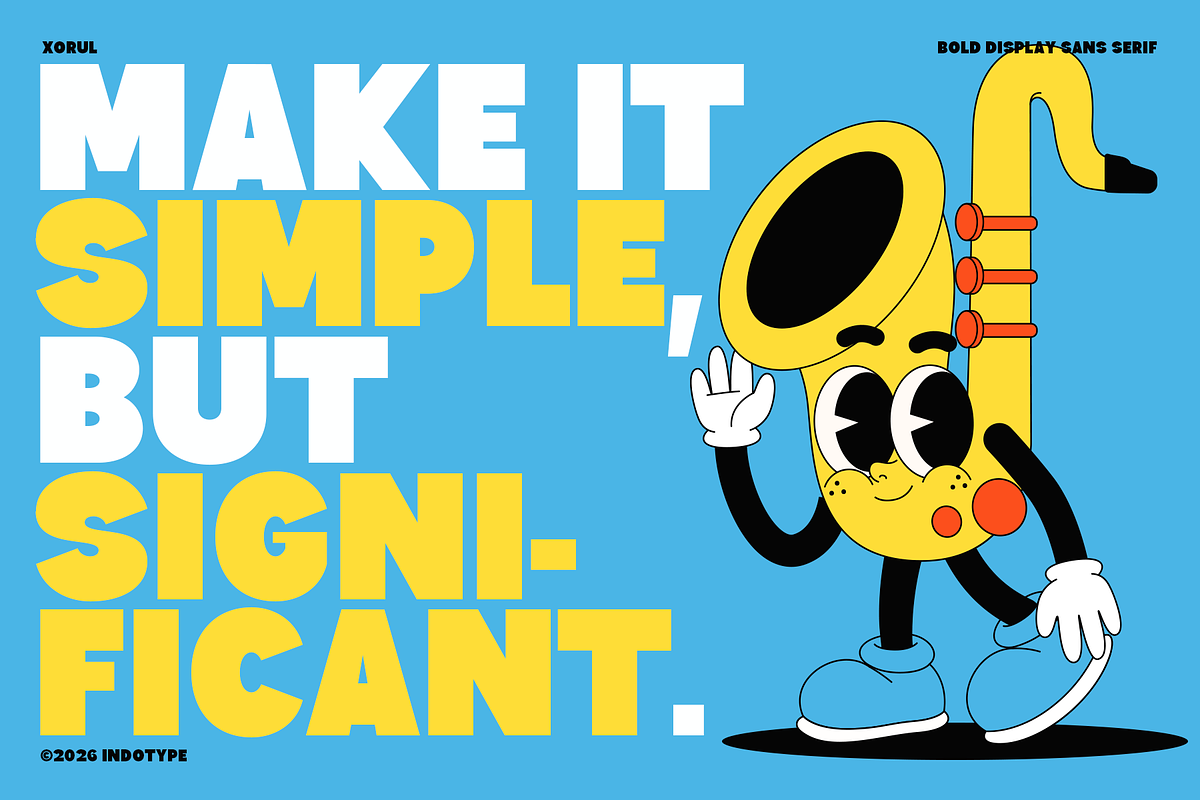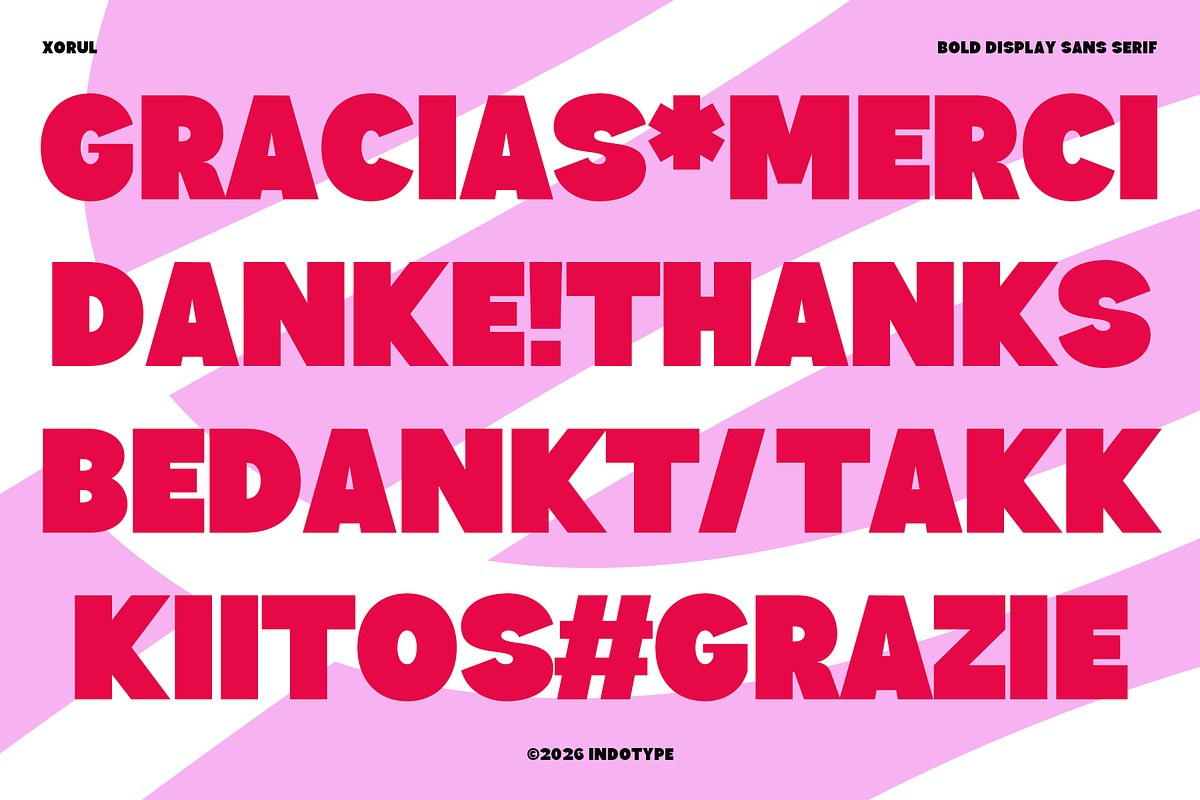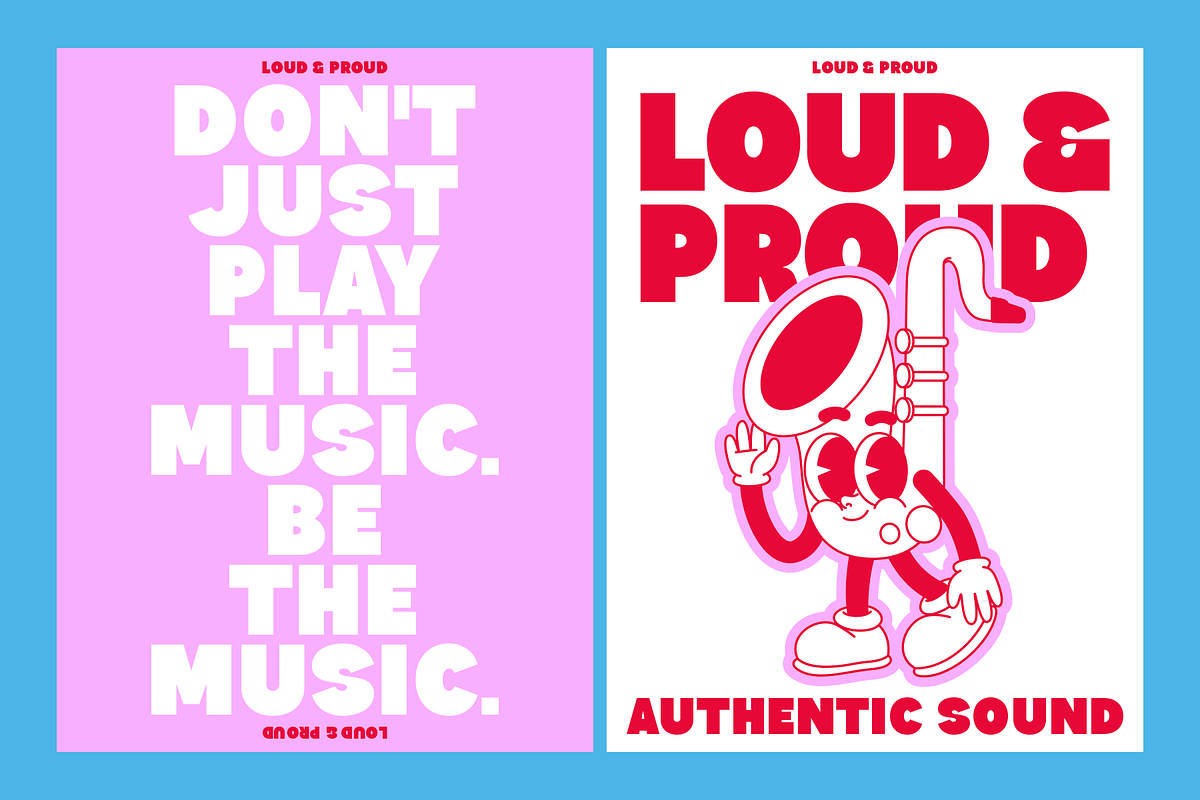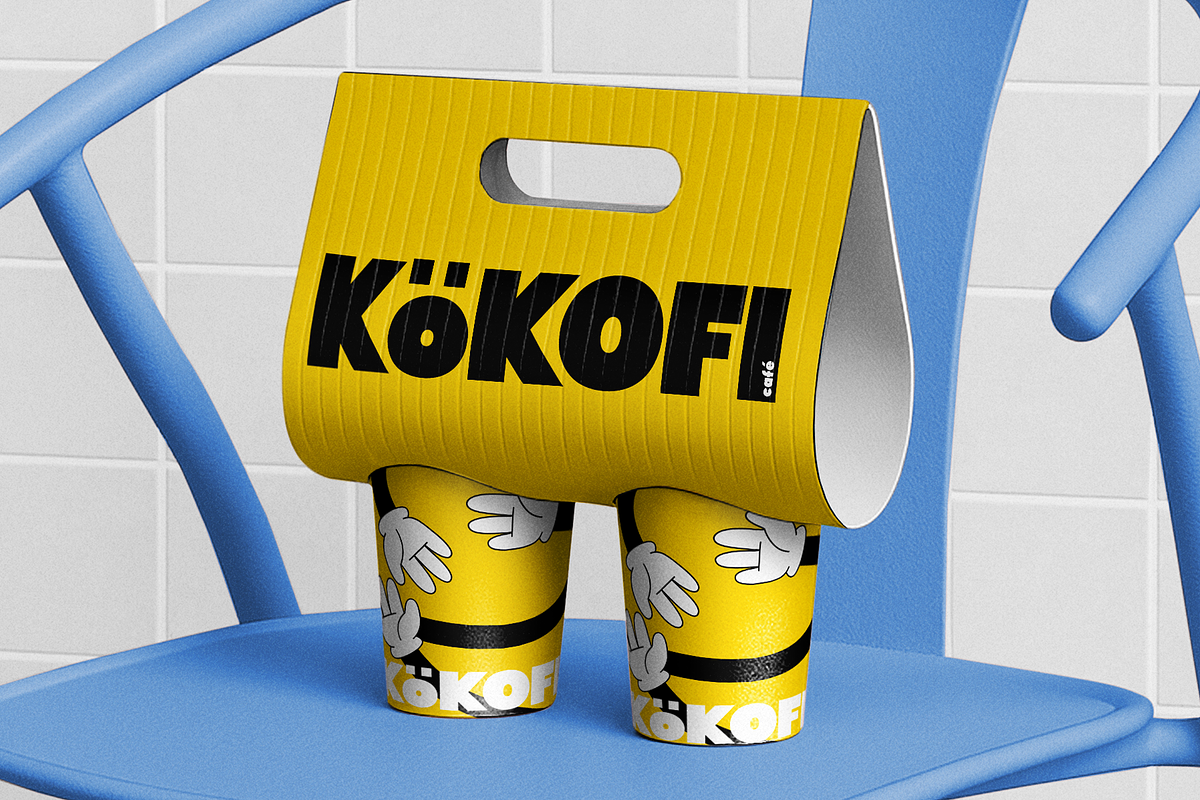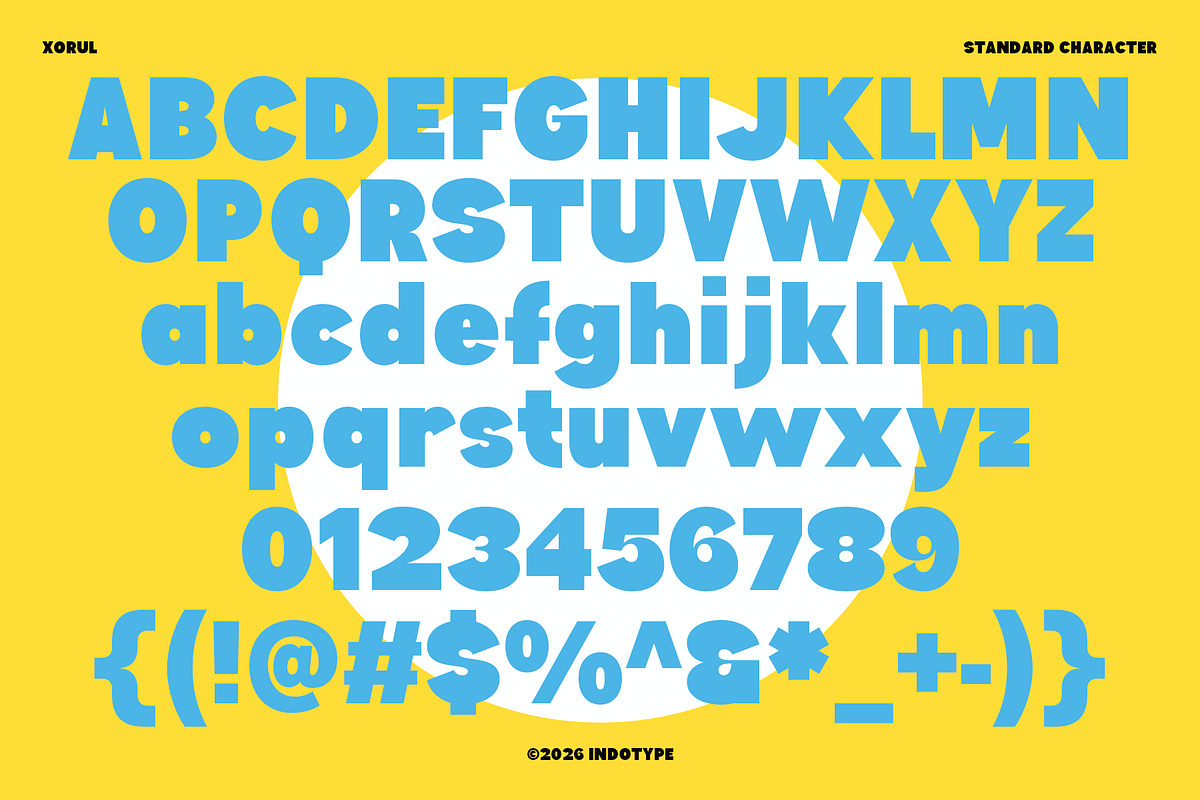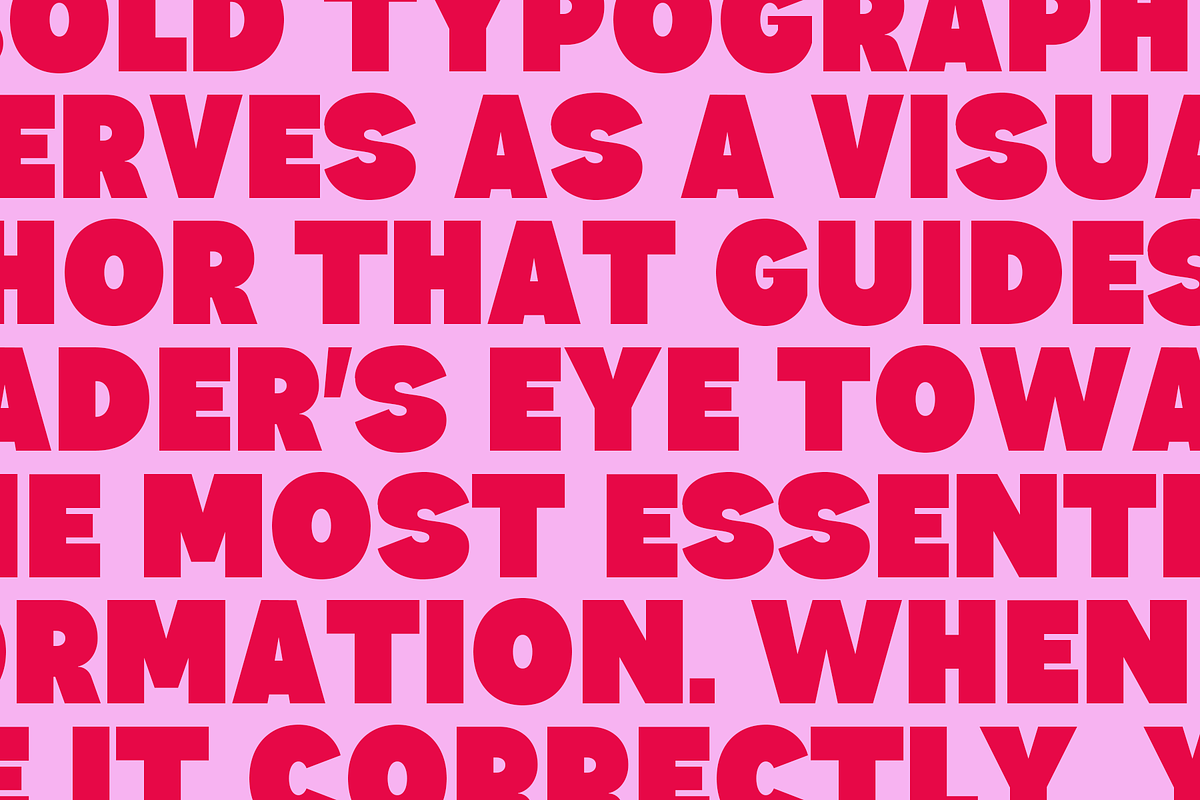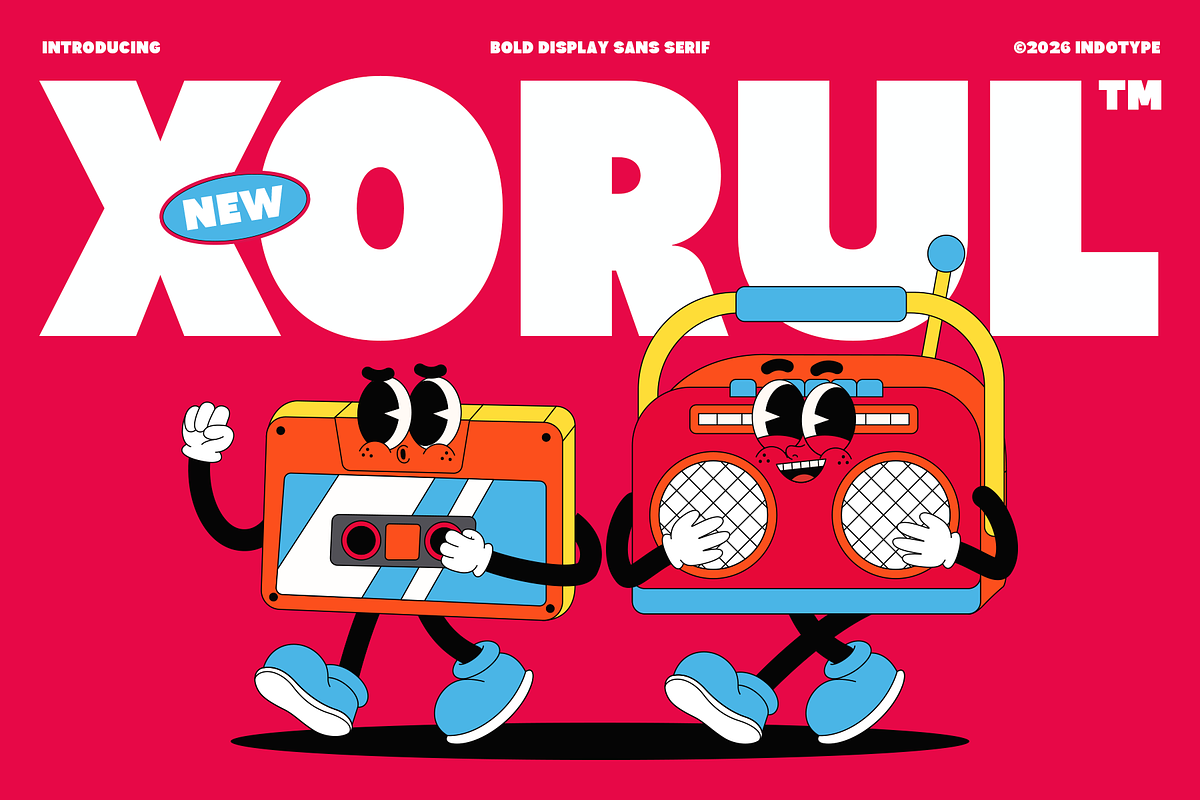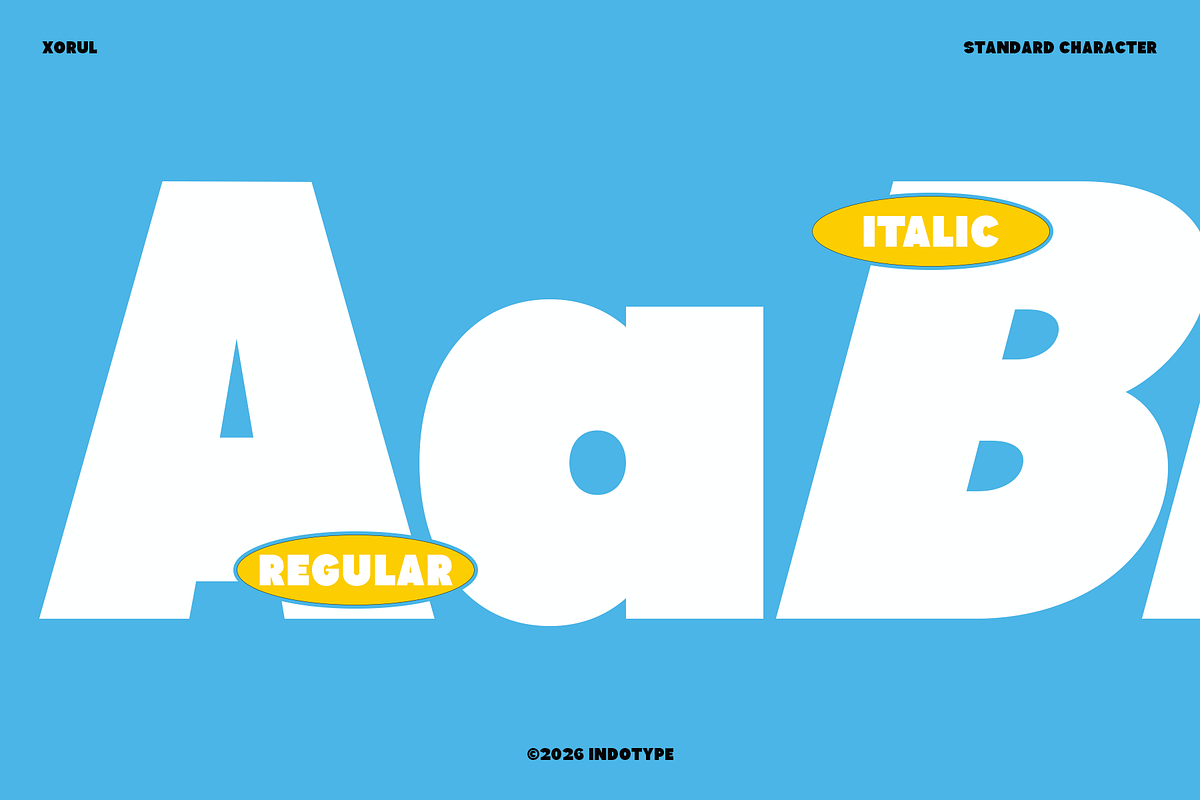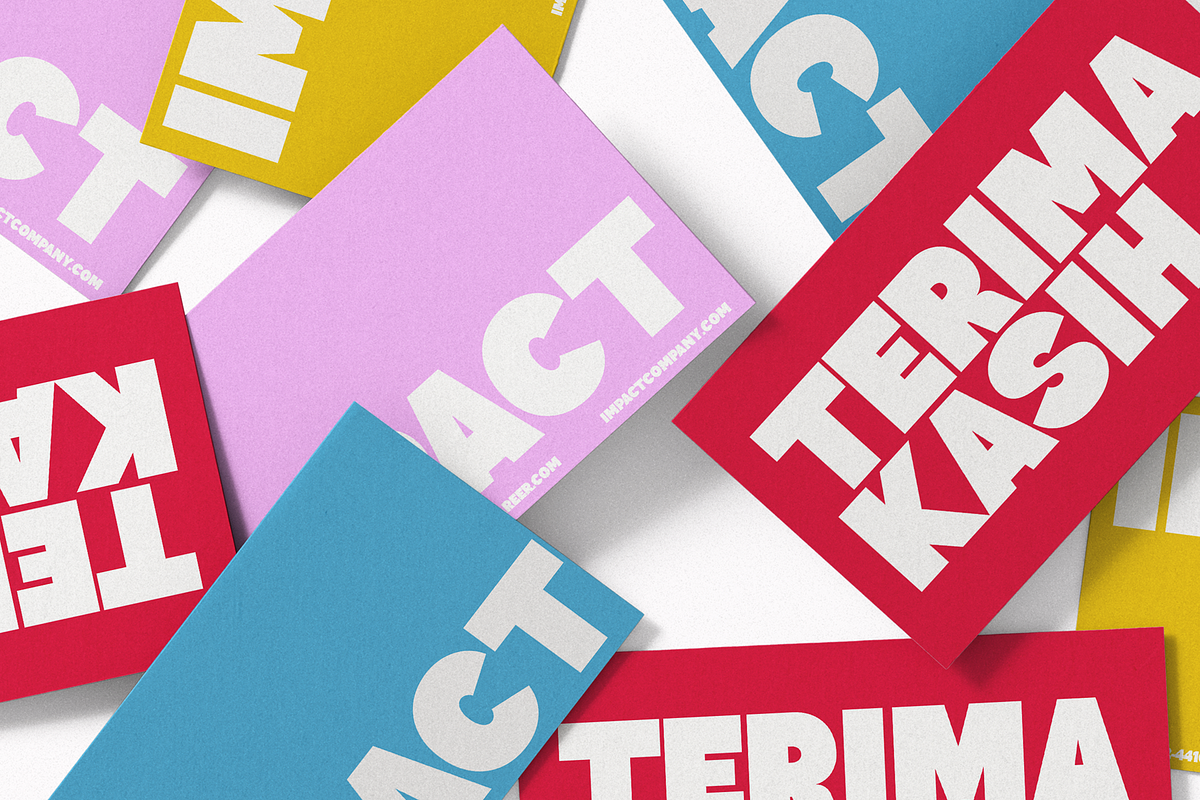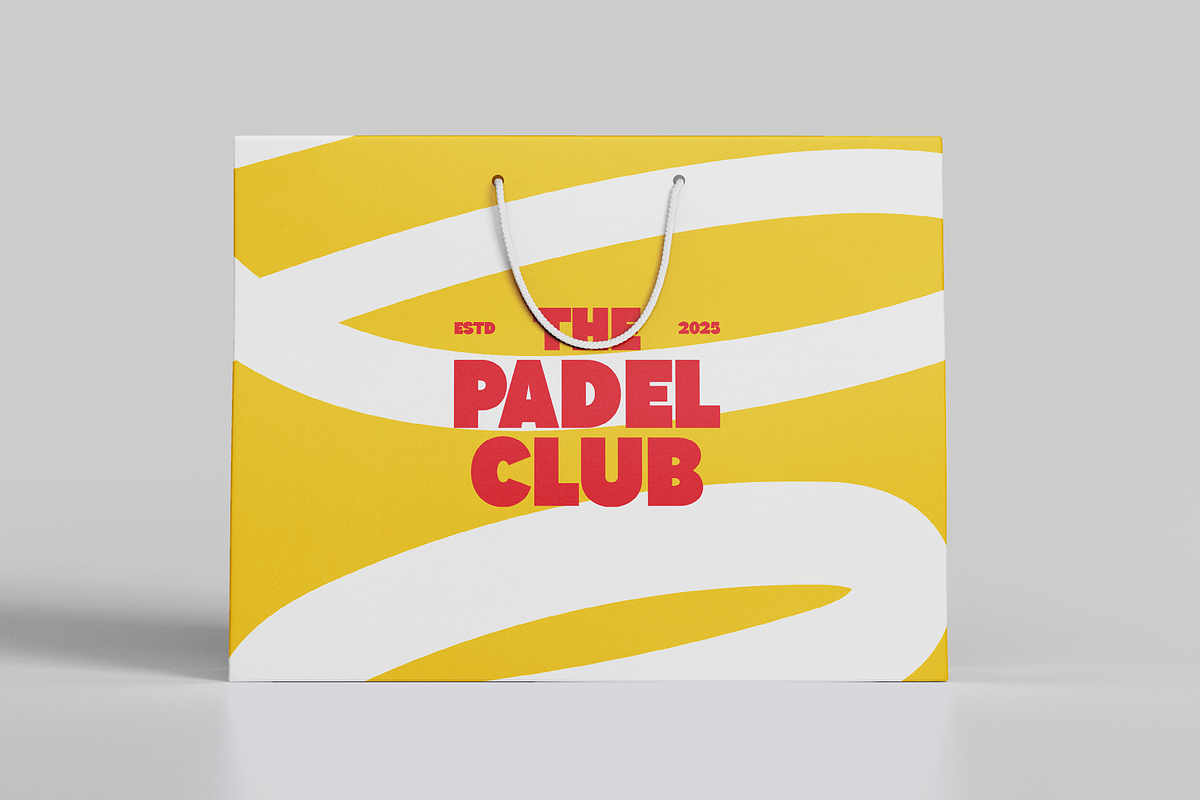
Xorul - Retro Sans Bold Display
Xorul is an uncompromising, ultra-bold display sans-serif that makes a definitive statement through sheer presence and geometric precision. Its commanding weight, tight letter spacing, and monolithic letterforms are engineered for maximum impact, creating a visual wall of text that demands attention. Stripped of any superfluous detail, Xorul focuses on pure graphic power, making it a tool for dominance in the visual landscape. This font is built for headlines that need to stop the scroll, logos that require instant recognition, and any branding that aims to project strength, modernity, and confidence. Perfect for music posters, tech branding with an edge, athletic campaigns, and editorial design that isn't afraid to be bold, Xorul is the typographic equivalent of a headline in all caps—loud, clear, and unforgettable.
- Ideal for: Music & Event Posters, Tech & Streetwear Branding, Athletic Campaigns, Editorial Headlines, Impactful Logotypes, Packaging with Attitude.
- Classification: Sans-Serif, Display, Geometric, Ultra-Bold.
- Attributes: Powerful, Monolithic, Modern, Aggressive, Confident, Graphic, Dominant.